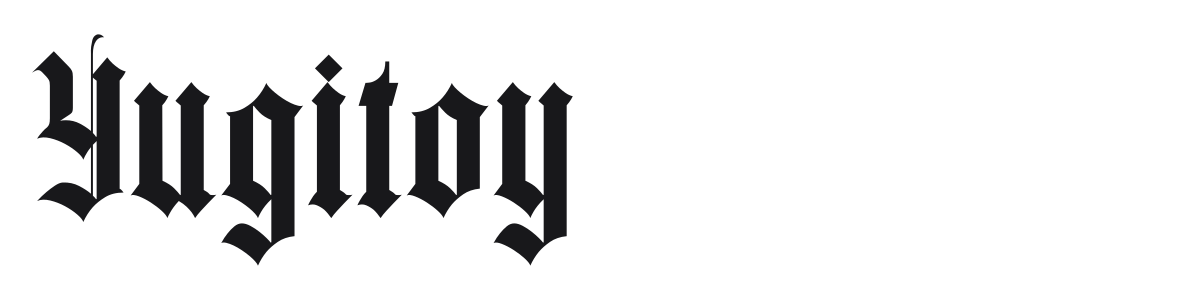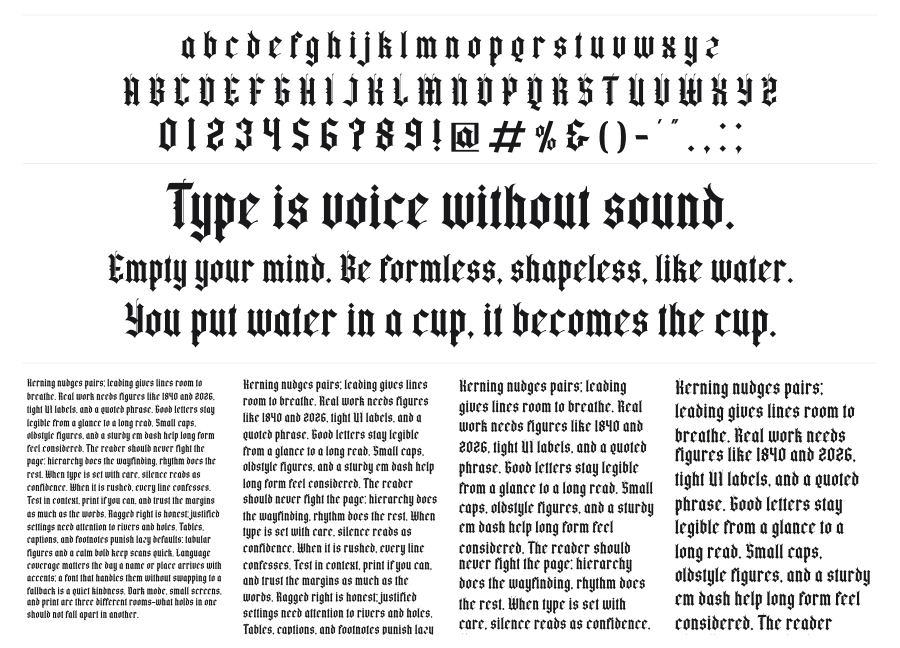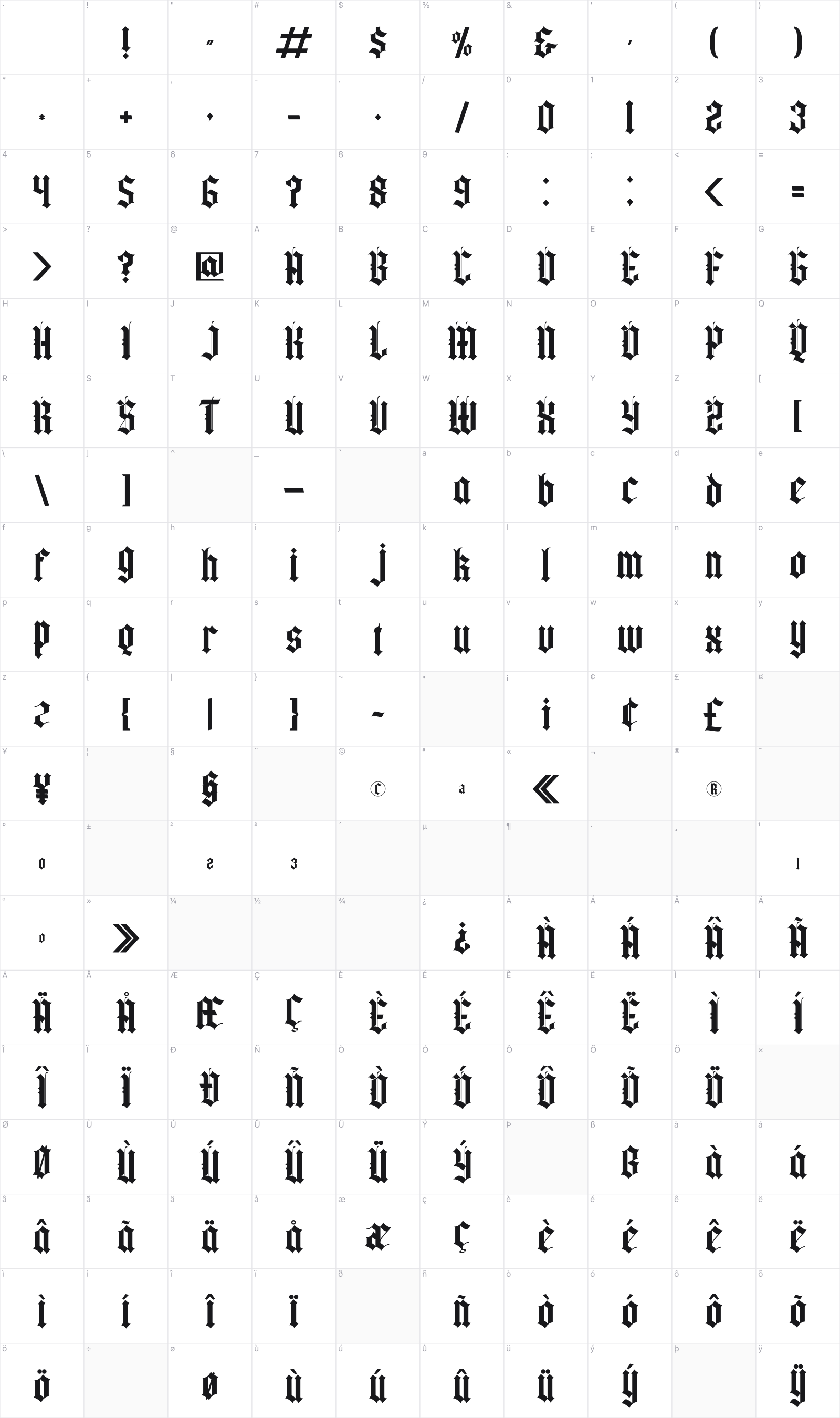
Yugitoy
Yugitoy is a heavy gothic blackletter with sharp pointed terminals and dense, high-contrast strokes that give it a forceful, modern edge. It draws from traditional Textura construction but pushes the weight toward the extreme, making every word feel like a statement. Works naturally for music branding, streetwear, and any project that needs raw typographic intensity.